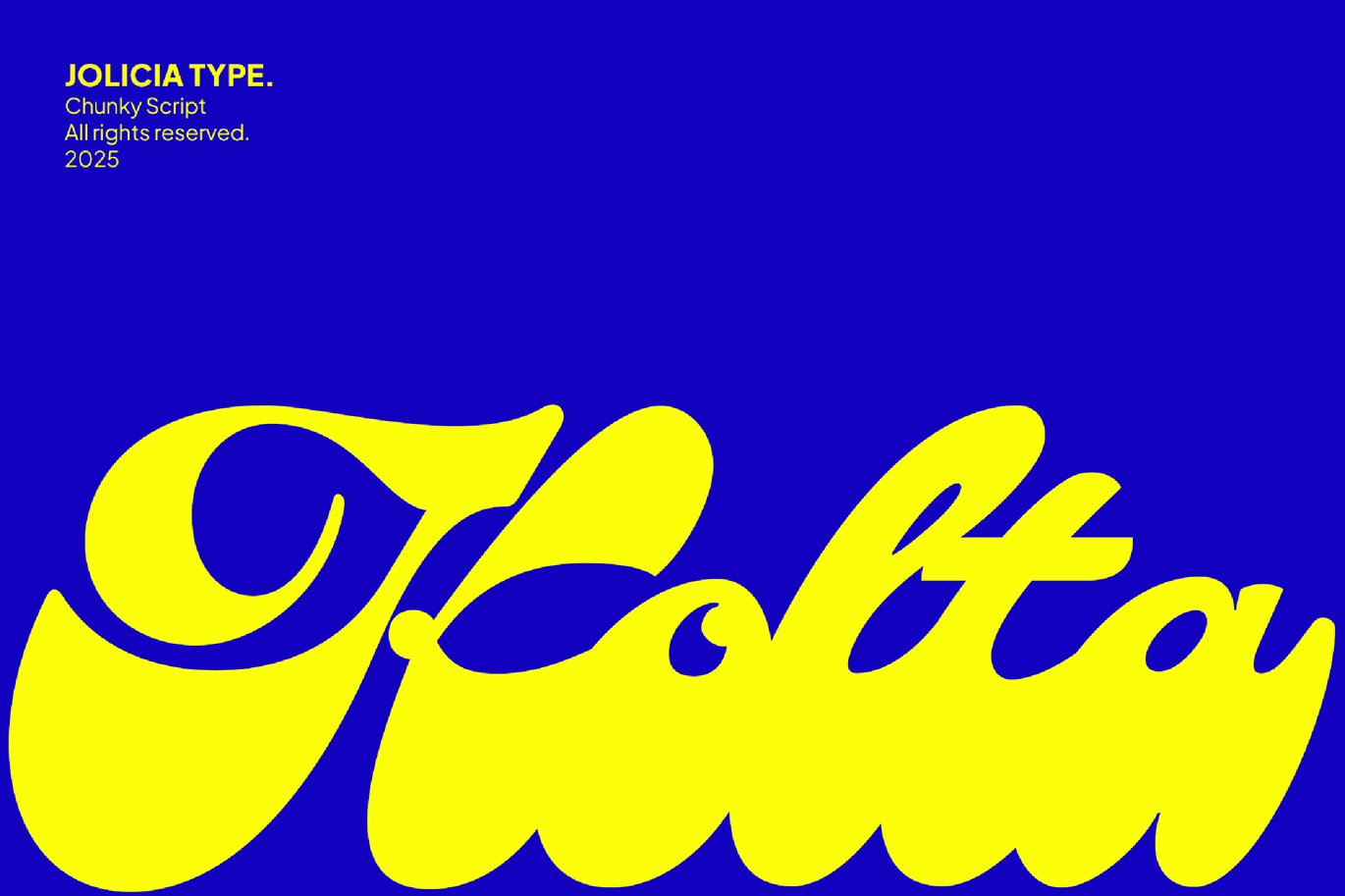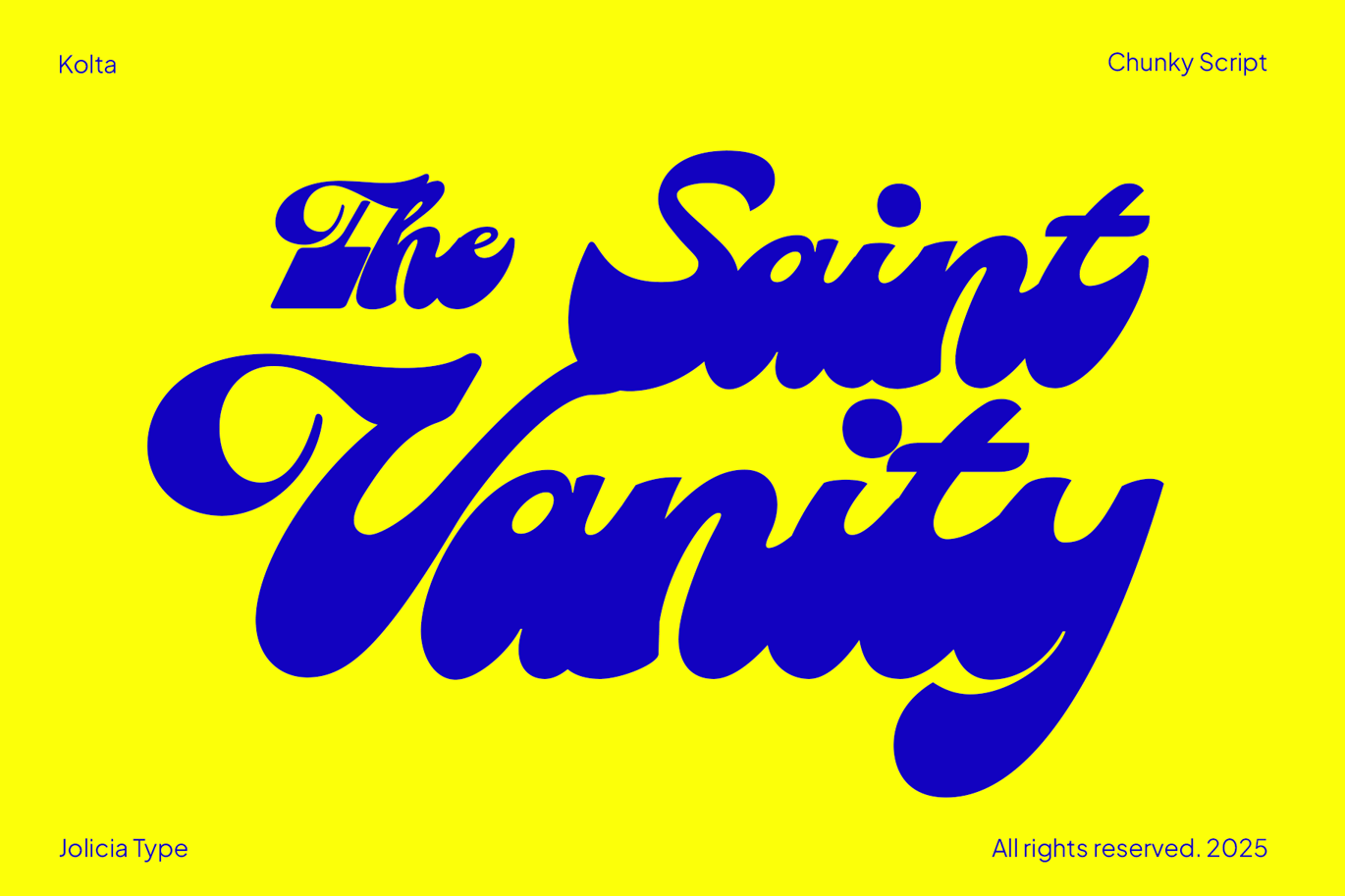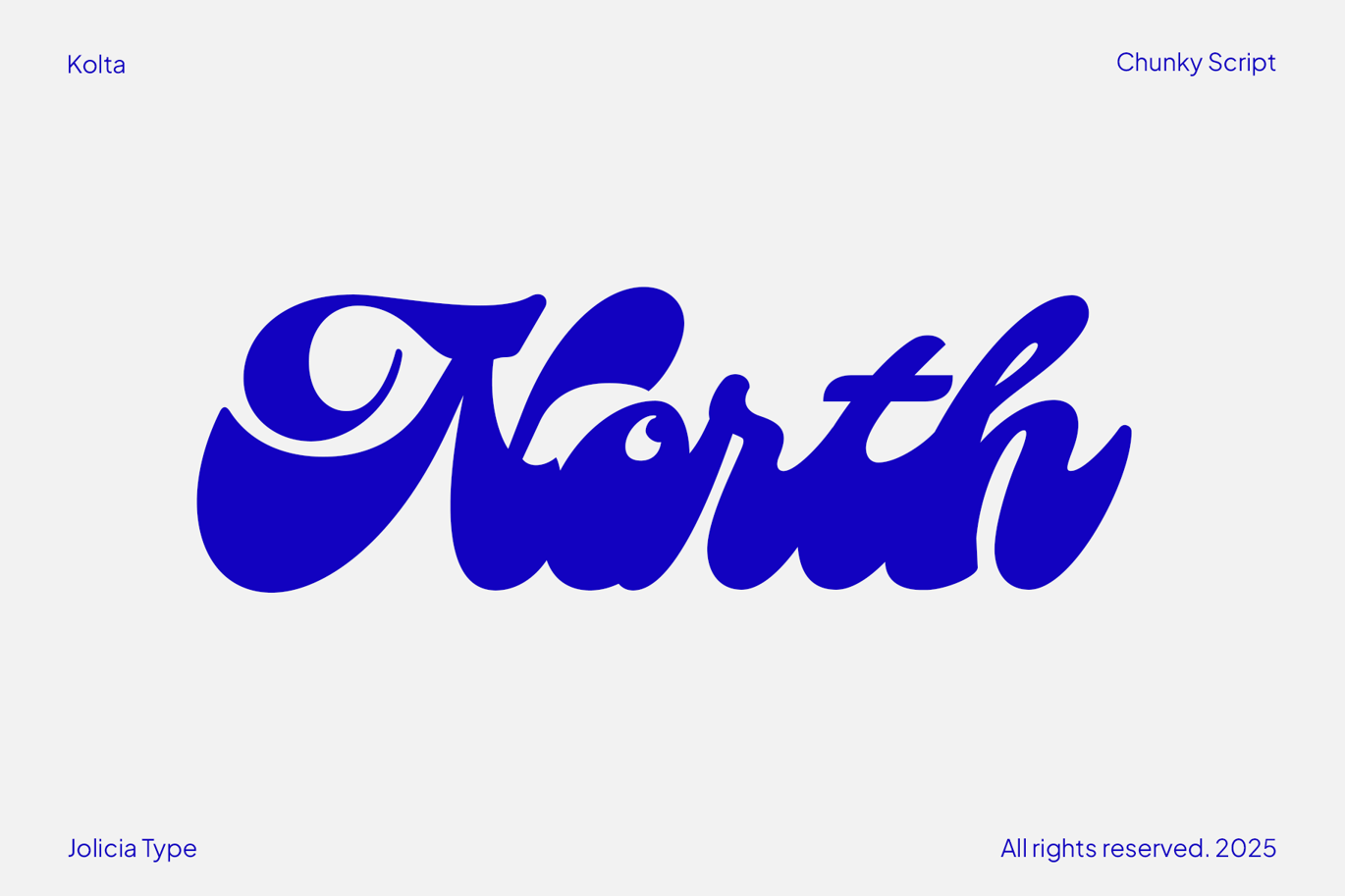
Kolta | Bold Chunky Script Font
Kolta is a script with so much weight that the counters nearly close. Loops are big and round, joins are smooth, and capitals like K and V curl into fat swirls. In blue on bright yellow, The Saint Vanity on the specimen looks lifted from a 1970s record shop window.
Jolicia Type released it in 2025 with 372 glyphs and support for around 90 languages, sold as OTF, TTF and WOFF2. Because it is so heavy, Kolta survives being printed small on labels or stitched onto a cap better than thin scripts do.
Best uses for Kolta
• Retro logos for cafés and shops
• T-shirt and cap prints
• Packaging for sweets and drinks
• Record and playlist covers
• Bold social media headlines
Kolta needs a firm, simple partner. Jost is clean enough for small print. Archivo works for product details. For a matching retro sans in caps, try Bebas Neue.
What free font is similar to Kolta?
Lobster and Pacifico are open-licence scripts with a heavy, retro look. Neither is as thick as Kolta, so set them a little larger.
Is Kolta good for small text?
Not for paragraphs. It reads well in short words and names, even at modest sizes, but long lines become hard to scan.